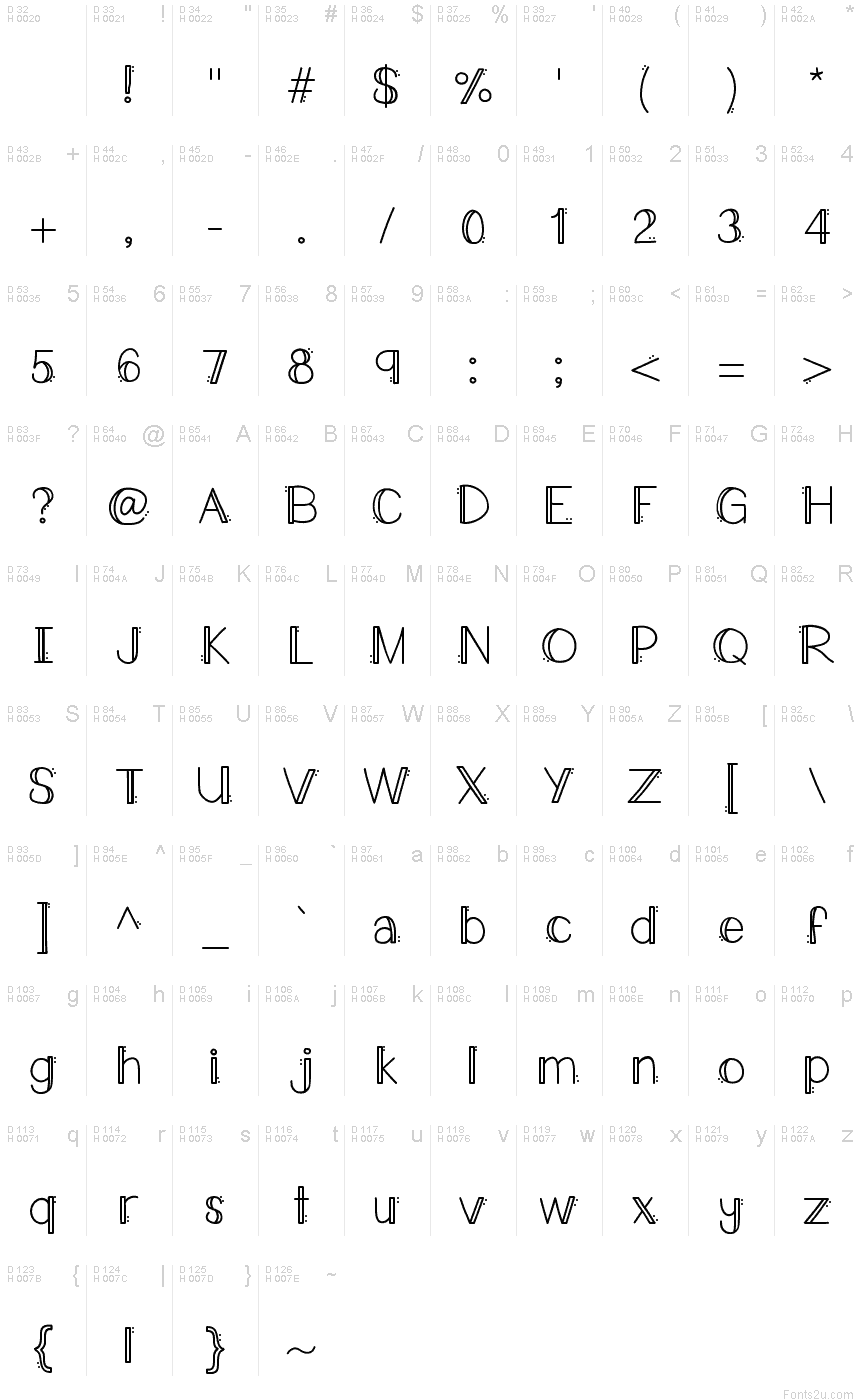
ALLinedAndDotted
ALLined and Dotted by Alyssa Leanne is a free comic display font with tall, airy letters and an unusually delicate monoline build. Small dot clusters gather beside joins and stroke ends, turning the otherwise spare outlines into playful, recurring punctuation.
Designs for children and young teens could use its gentle oddness in activity books, stationery, and classroom event graphics. It also suits lighthearted cafe packaging. On music posters, the scattered dots can become part of a wider bubble or confetti illustration rather than remaining simple lettering.